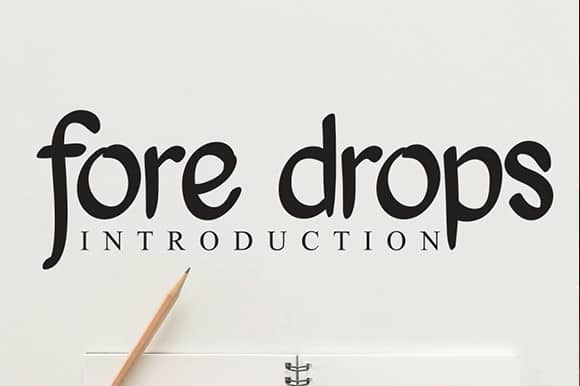
Fore Drops Script Font
Fore Drops is a casual, fun display font, created by using a brush pen.
Clean and a little bit quirky, this font is the perfect fit for all of your logos, branding, social media, and crafty DIY projects.